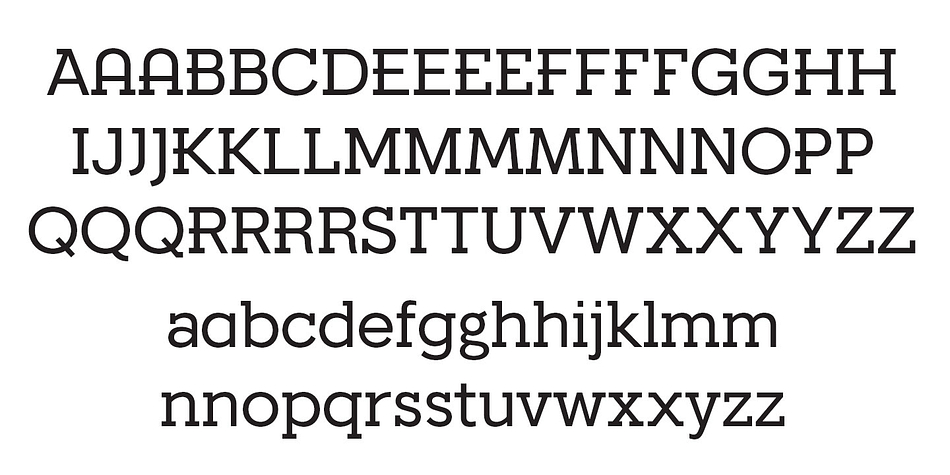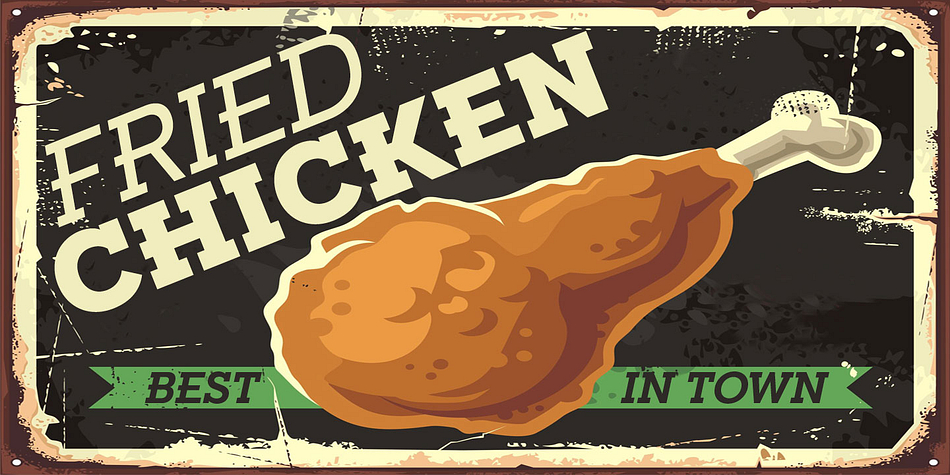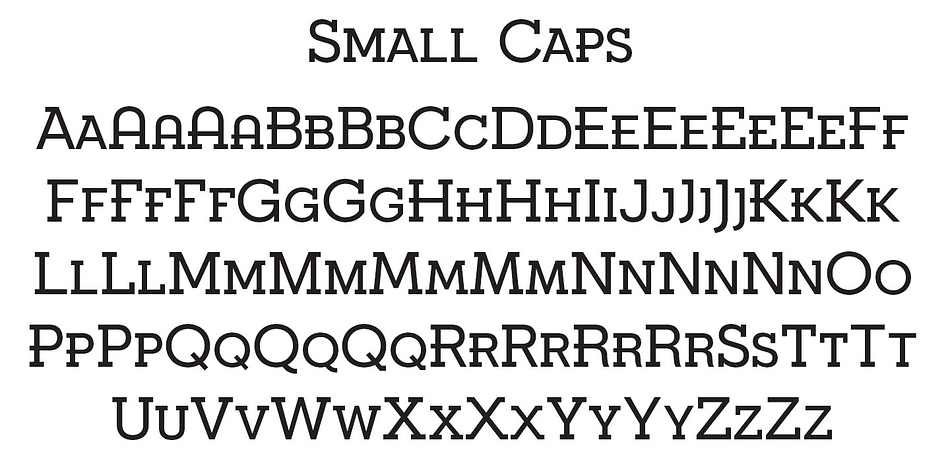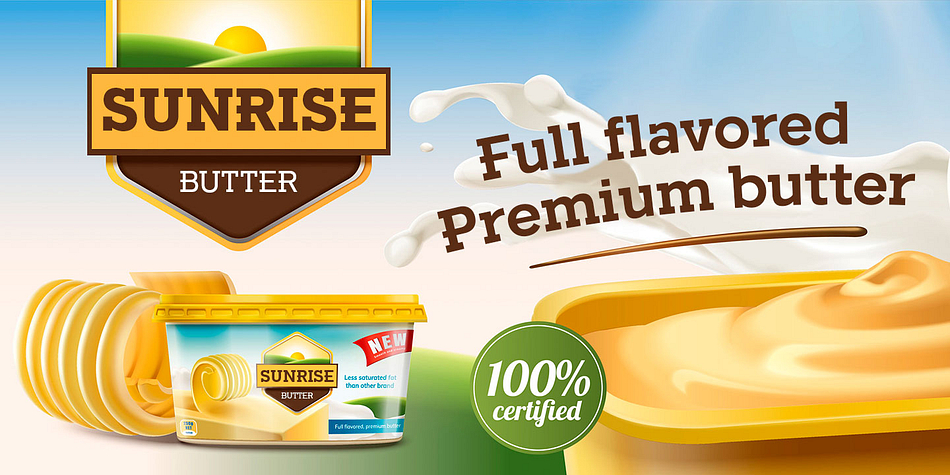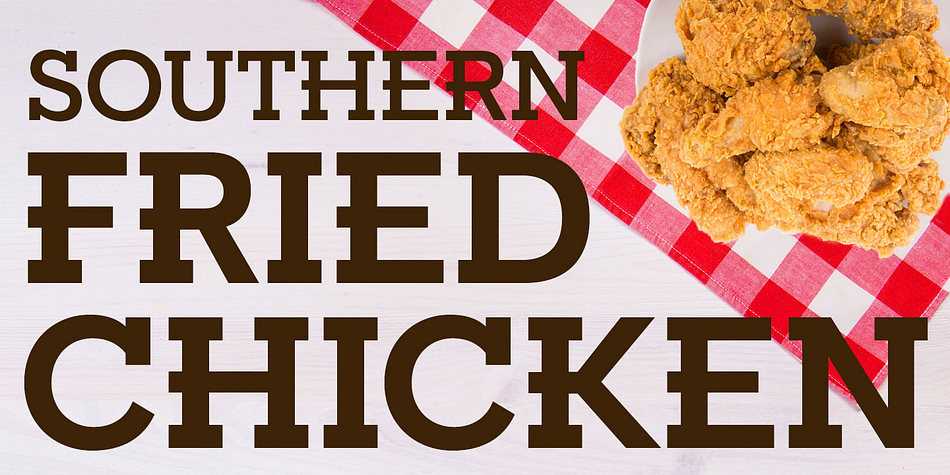
Designed by Michael Hagemann, Fried Chicken is a slab serif font family. This typeface has thirty-two styles and was published by FontMesa.
The name of this font brings back memories of an old fried chicken restaurant in Willow Springs Illinois circa 1960’s and 1970’s, my family would all get in the car and take a long drive down to an old country road Illionis Rt 171 through a forest preserve where we’d come upon the old Willowbrook motel with a bar and restaurant next door.
The restaurant was called Kegal’s, when you entered the building you had to walk through the smoky bar first to get to the restaurant, I can still see the hard wood floors with all the finish worn off from decades of foot traffic.
Up until the mid 1960’s Kegal’s used to raise their own chickens behind the restaurant, back then fried chicken in the Midwest was either coated in flour or bread crumbs, Kegal’s was covered in a beautiful layer of golden bread crumbs.
Before your meal arrived they’d bring a basket of dinner rolls along with crackers, bread sticks and country butter, on the side they’d serve coleslaw with a vinegar sauce, which is very common in the Midwest, the first time you try it your face puckers up like you just sucked on a lemon but you get used it over time.
After waiting for what seemed like forever to a child the waitress comes out of the kitchen with a huge tray of that golden deliciousness and your mouth begins to water, in her other hand was another tray filled to overflowing with crinkle cut french fries all made by hand, I’d eat a hole handful of those french fries first then take a bite of that tender juicy farm raised chicken.
Today a fine Italian restaurant occupies the old Kegal’s building and the motel is long gone, only my fond memories remain.
Fast forward to 2020 and FontMesa has just made some Fried Chicken as an eight weight type font family with alternates.
With the Fried Chicken slab serif font family we’ve broken some rules by removing a few of the slabs on certain letters for a unique homemade look.
Fried Chicken is perfect for your next product label, t-shirt design, logo, headline or cookbook cover.